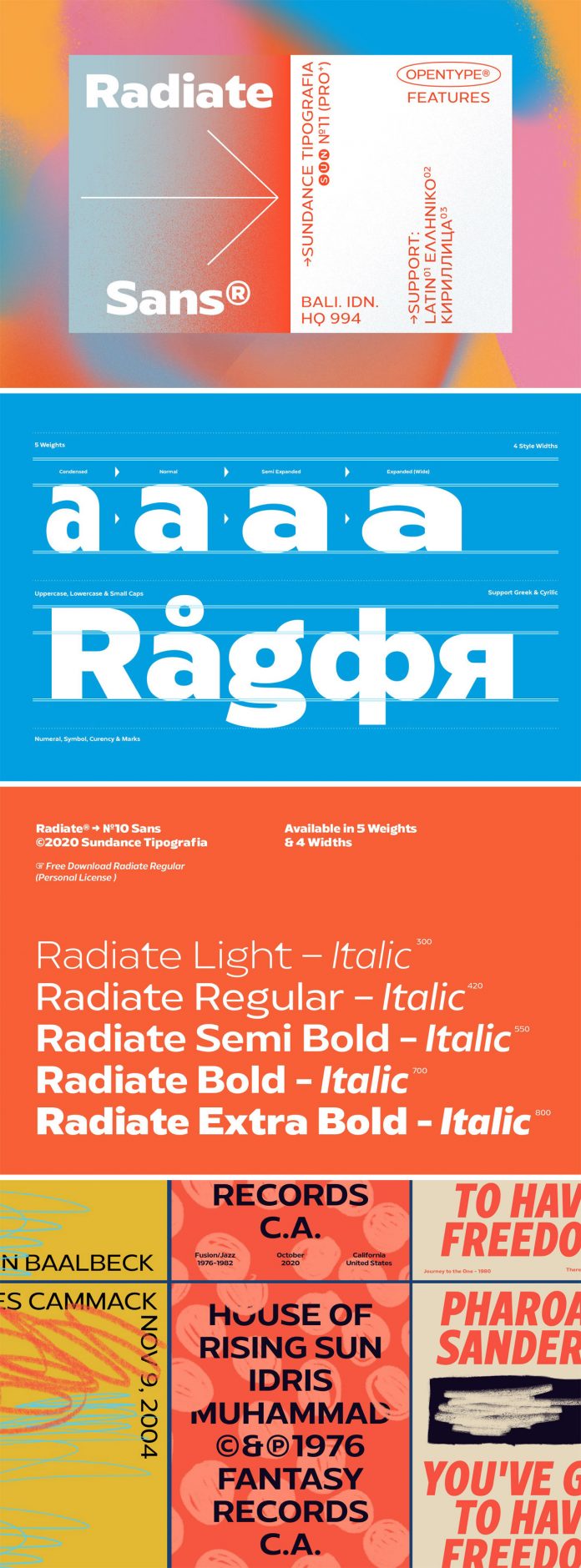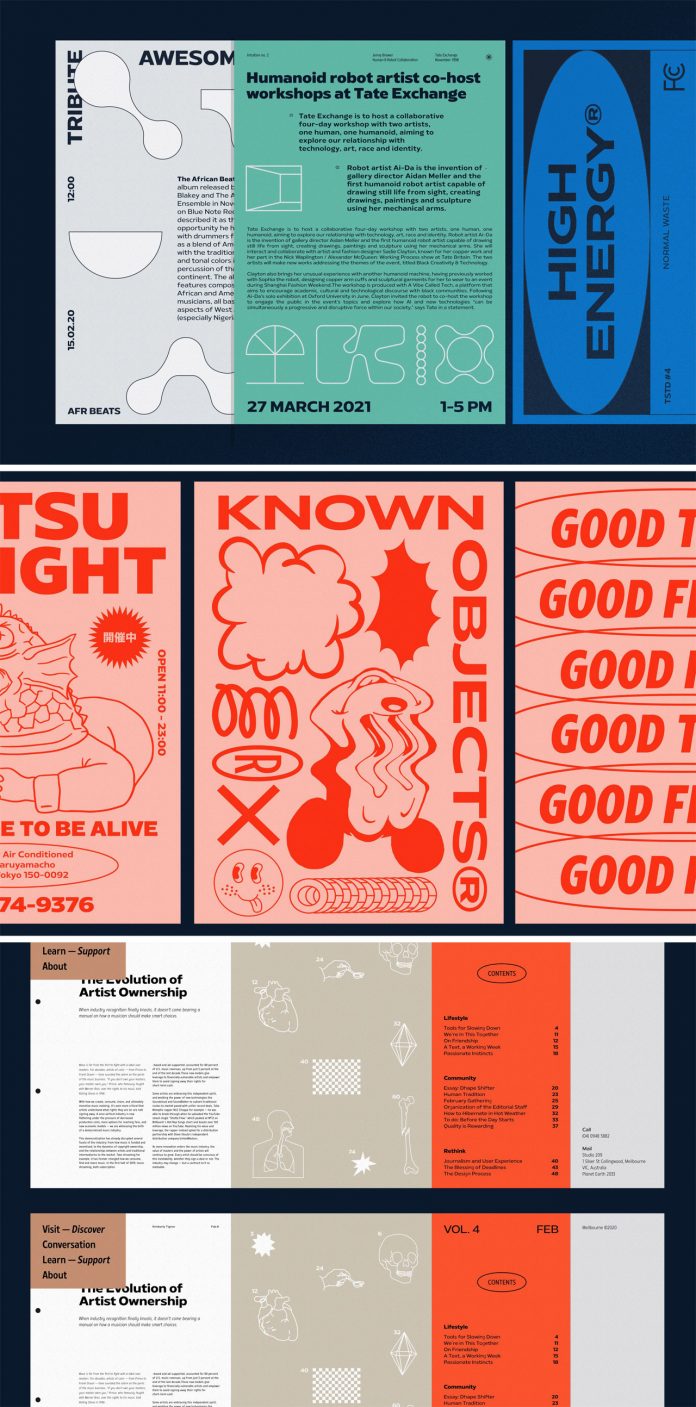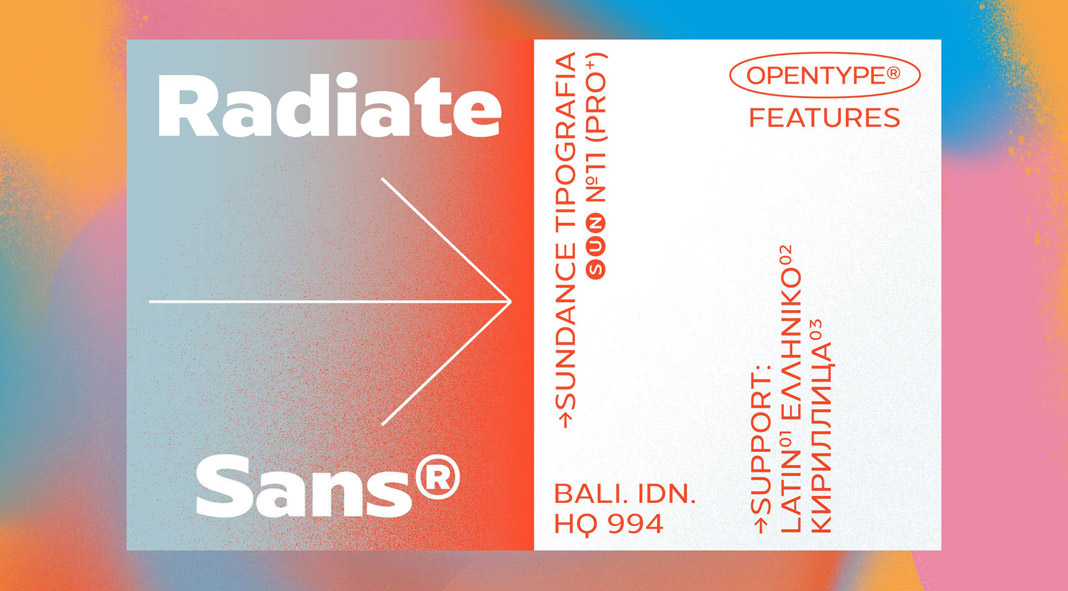
Radiate Sans, a humanist, geometric sans serif font family designed and published by Studio Sun.
The Radiate Sans font family has been designed as a versatile display typeface for posters and advertisements as well as anything that asks for highly legible typography. Its simple geometric letter shapes and medium contrast character styles are also well suited for website headers and different kinds of screen design. The font family includes 5 weights plus a bonus of four widths in the OpenType version. Radiate Sans supports ISO Adobe 2, Adobe CE, Latin Extended characters, Standard Greek, and Standard Cyrillic characters. Its versatile OpenType features include small caps, old-style figures, superscript and subscript, ordinals, proportional lining figures, and case forms.